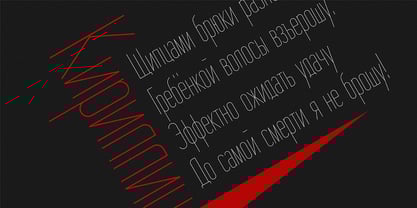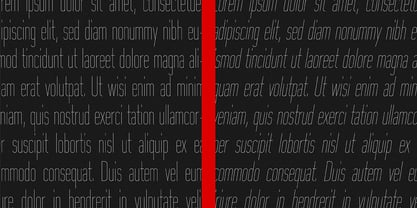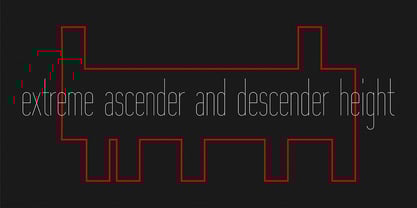
Option Font
Option Font is a versatile and elegant typeface ideal for a wide range of design projects. Its clean lines and modern aesthetic make it perfect for creating sleek branding, professional logos, and sophisticated magazine layouts. The font's readability also makes it a great choice for website headlines, social media graphics, and digital advertisements where clarity is key. Whether you're designing a minimalist business card or a striking poster, Option Font provides a polished and contemporary feel.
What makes Option Font so exciting is its exceptional balance of style and function. It manages to be both visually striking and highly legible, a rare combination in many modern fonts. The geometric precision of its characters gives it a clean, structured appearance, while subtle design elements add a touch of personality. This makes it a go-to choice for designers looking for a font that is both professional and memorable. It’s a typeface that commands attention without being overly bold, making it suitable for a variety of tones and messages.
The Option Font family includes a comprehensive selection of weights and styles to meet all your design needs. This family typically consists of variations such as Light, Regular, Medium, Semibold, and Bold. These different weights allow for great flexibility in creating visual hierarchy and emphasis within your designs. For example, you can use the Bold weight for headlines to make a strong statement and the Light weight for body text to maintain a clean and airy feel.